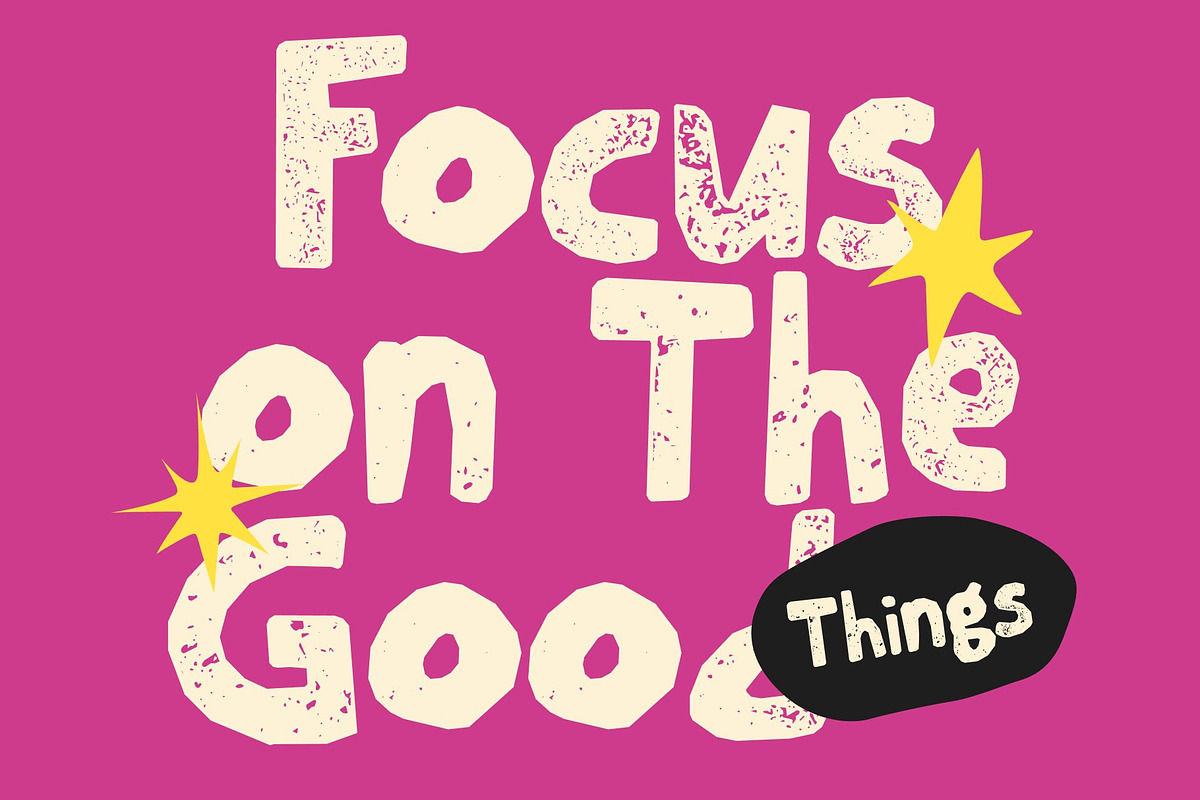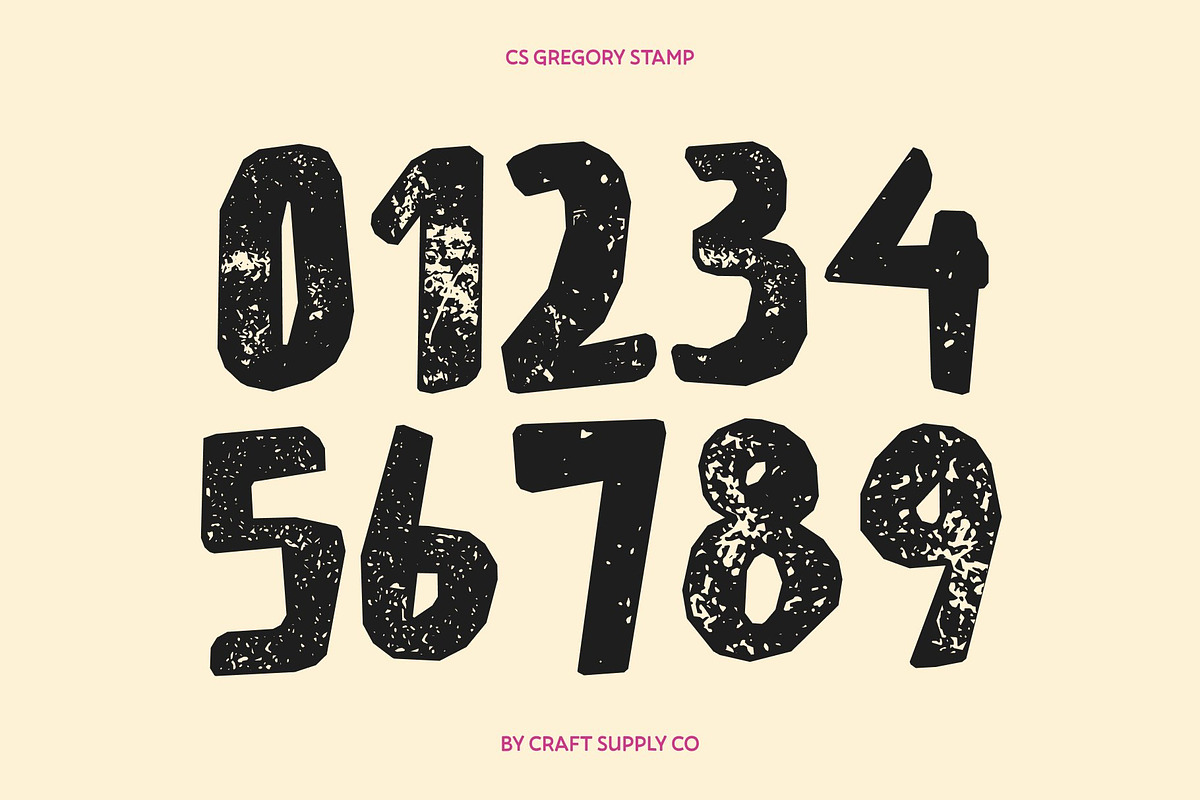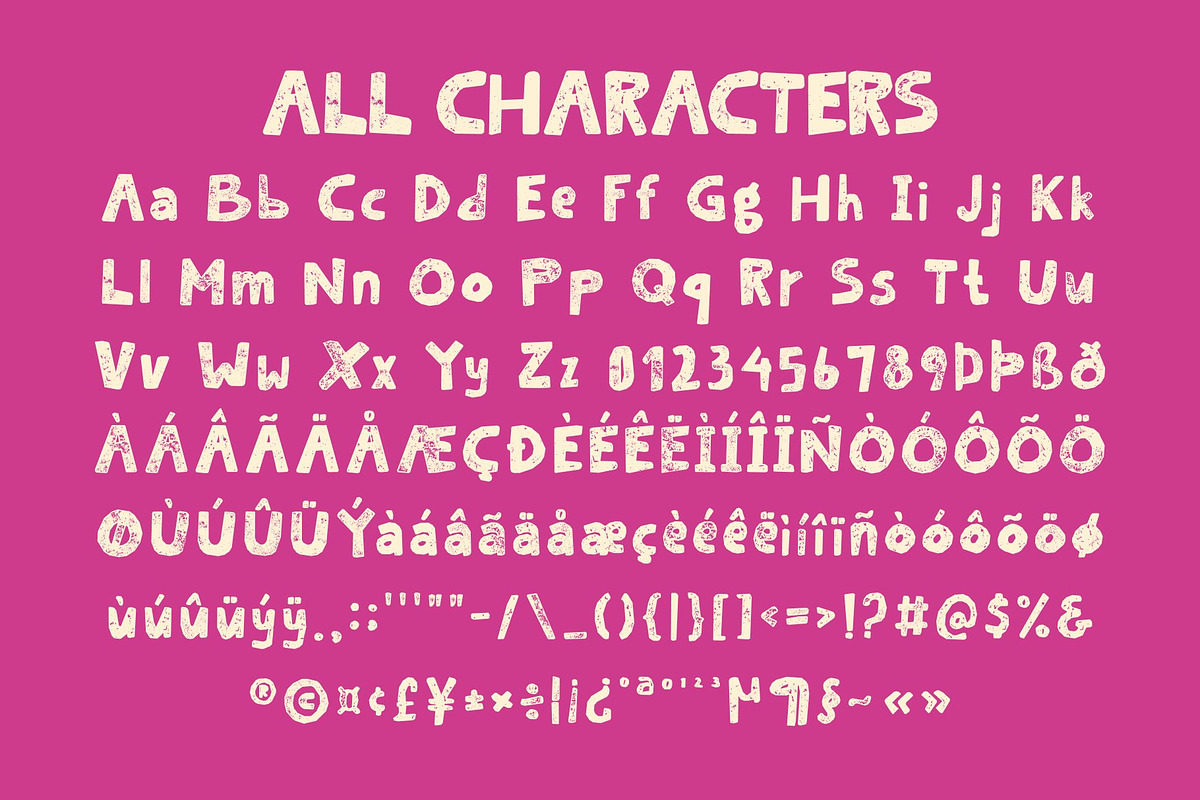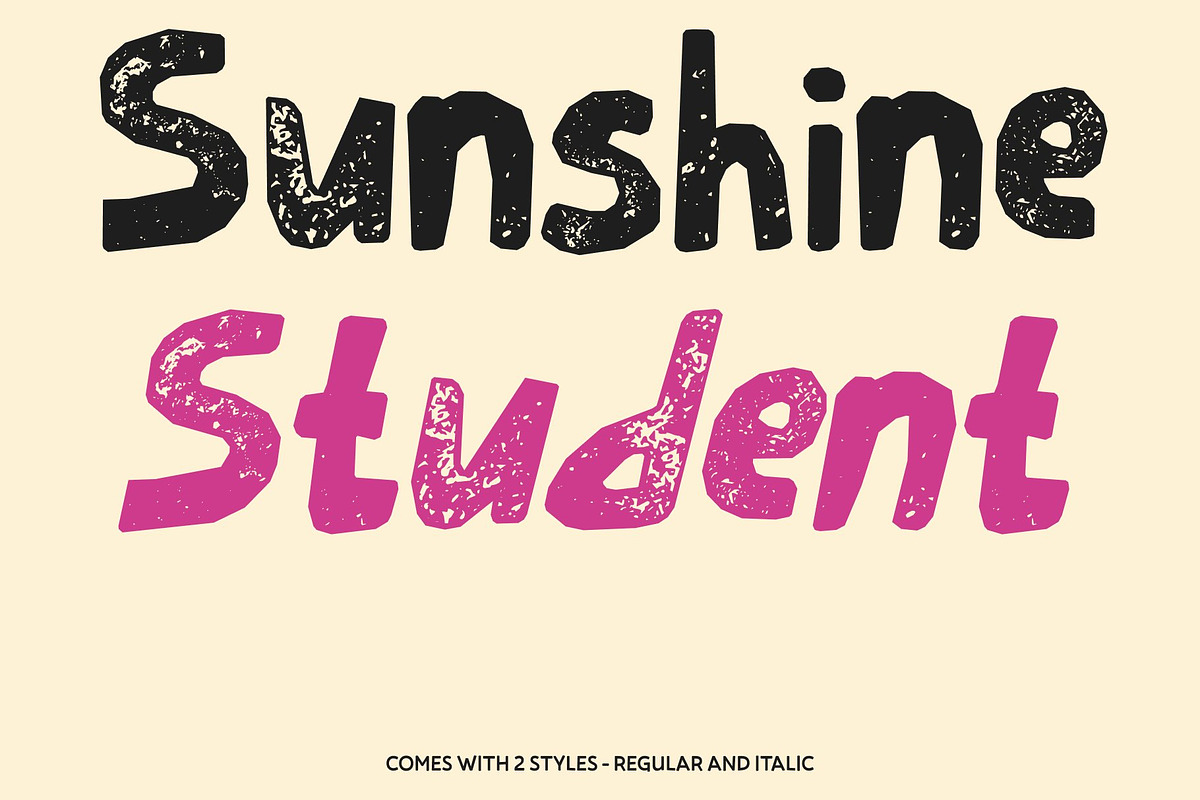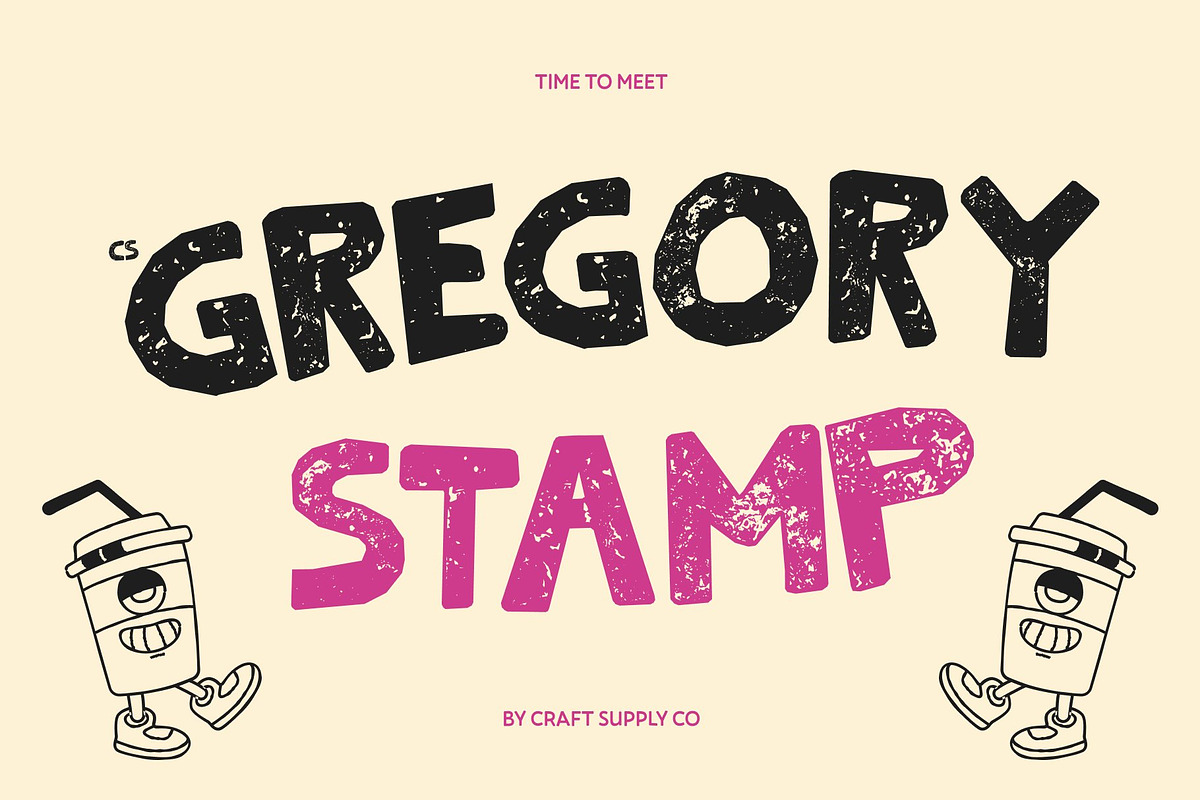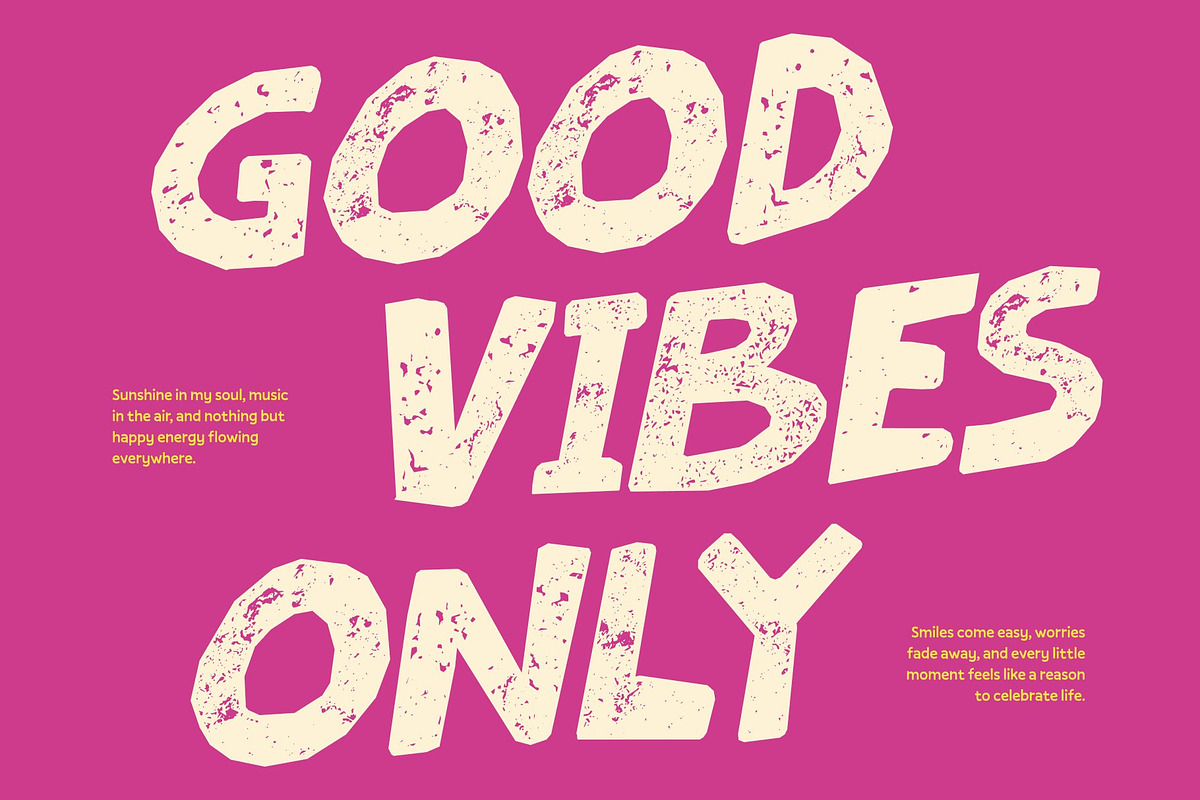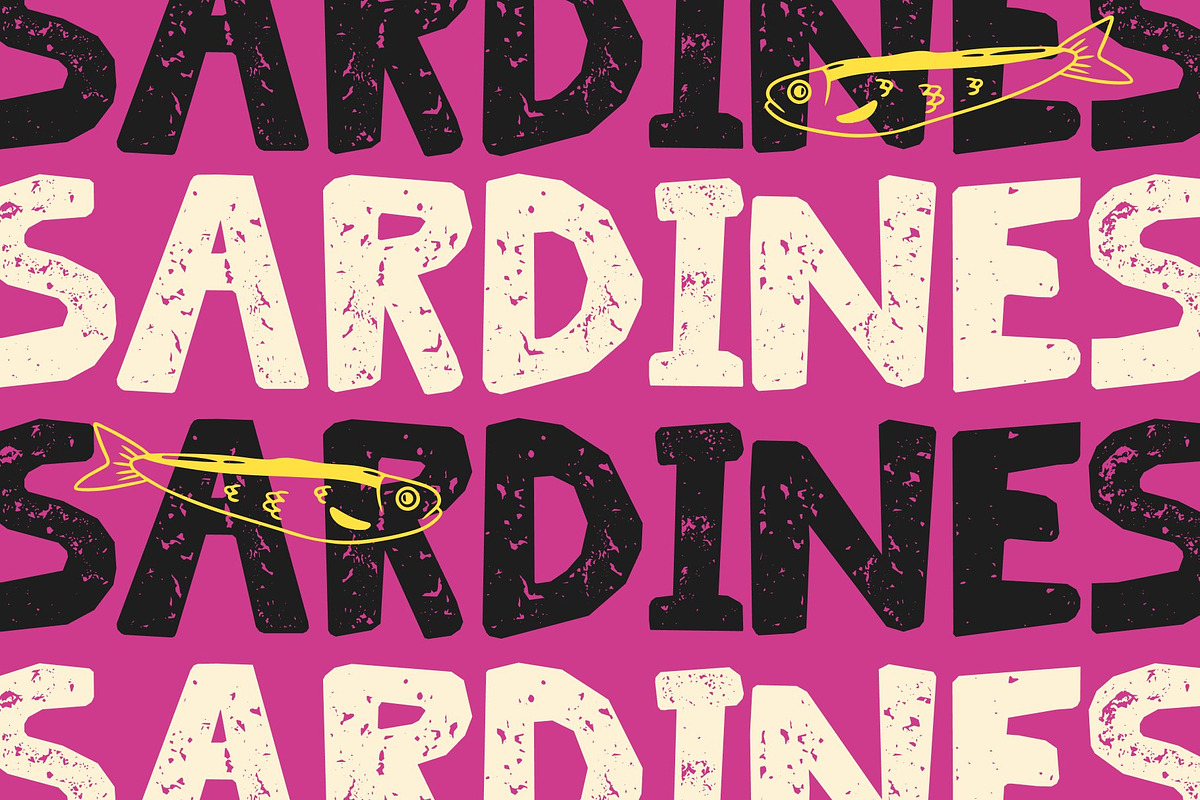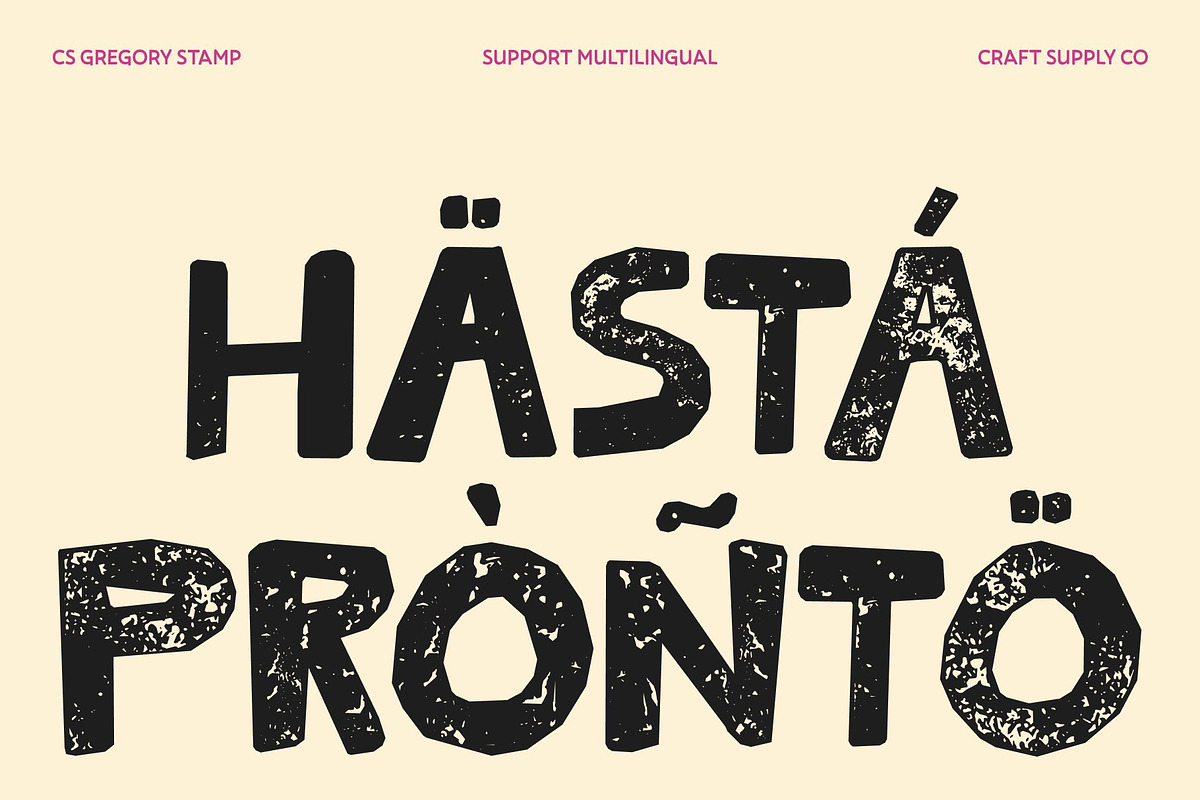
CS Gregory Stamp
CS Gregory Stamp – Playful Personality with Quirky Charm
Modern Meets Handwritten Expression This is a cheerful display font that blends modern sans serif structure with the spontaneity of handwritten style. Enhanced with a vintage stamp texture, each character feels slightly irregular yet full of life bringing a handcrafted warmth and tactile personality to every word.
Playful Shapes with a Happy Vibe This quirky “ugly-beautiful” font embraces imperfection as part of its charm. Its unusual letterforms and lively proportions create joyful, expressive energy, while the stamped texture adds a nostalgic, print-inspired character that feels artistic and authentic.
Perfect for Bold and Creative Branding This font shines in posters, logos, packaging, and editorial layouts where personality matters most. Its lively rhythm and handcrafted feel make it perfect for youth-oriented brands, art events, lifestyle campaigns, and projects that aim to stand out with charm and creativity.
Typography That Smiles Back More than just a font, this font celebrates playfulness and originality. The blend of modern structure, handwritten spirit, and vintage stamp texture transforms words into joyful expressions perfect for designs that want to feel personal, expressive, and full of fun.
CS Gregory Stamp Regular
CS Gregory Stamp Italic